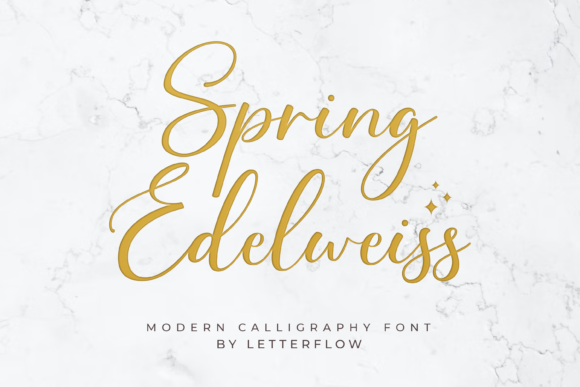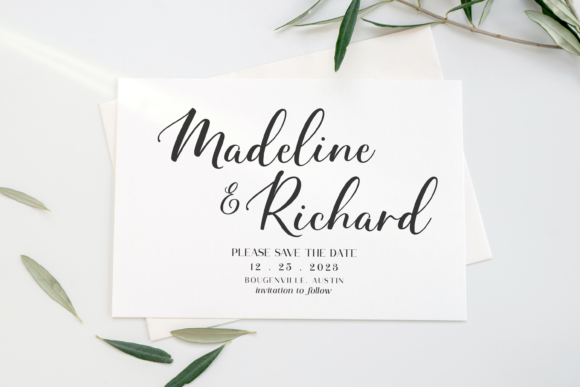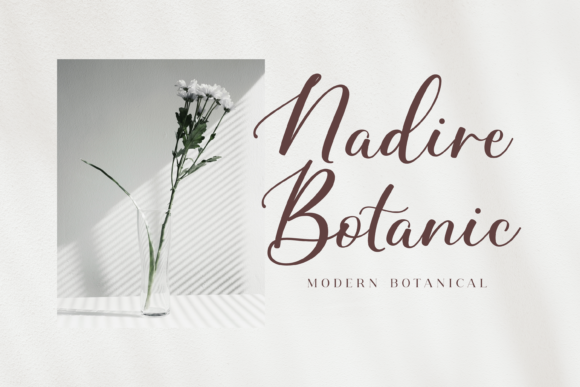
About Spring Edelweiss Font
Spring Edelweiss is a captivating and elegant script font that embodies a sense of grace and sophistication. Its delicate strokes and charming letterforms create an air of timeless beauty that is sure to breathe new life into your design projects. This font has been thoughtfully designed with the intention of offering a stunning and rejuvenating aesthetic to elevate your creative endeavors.
The flowing and intricate nature of Spring Edelweiss makes it a perfect choice for a wide array of design applications. If you’re working on branding materials, this font can infuse your logos, packaging, and promotional materials with an aura of refined elegance. Its versatile style allows it to seamlessly adapt to various industries and niches, bringing a touch of luxury to your brand identity.
Furthermore, Spring Edelweiss is an excellent choice for creating captivating wedding invitations. Its delicate curves and graceful lines perfectly capture the romantic essence of such a special occasion, setting the tone for a truly memorable event.
Beyond branding and invitations, this font is equally well-suited for crafting inspirational quotes, greeting cards, and social media graphics. Its elegant appearance can add a touch of class to these everyday designs, making them stand out and leave a lasting impression on your audience.
Spring Edelweiss is a font that has been meticulously crafted to cater to those who seek a beautiful and refreshing aesthetic for their projects. Its attention to detail and artistic flair make it a versatile tool for enhancing the visual appeal of various design endeavors. Whether you’re aiming for a sophisticated look or simply want to add a touch of elegance, Spring Edelweiss is an exquisite choice that promises to elevate your designs to a new level of beauty and refinement.